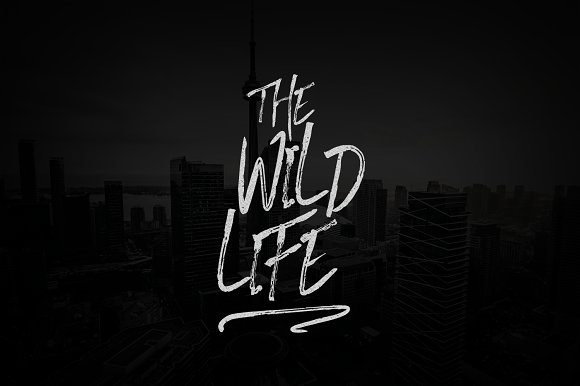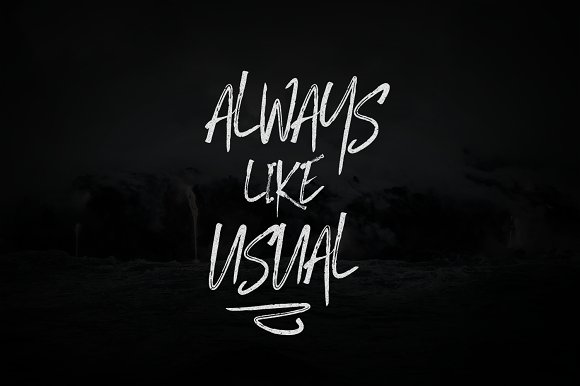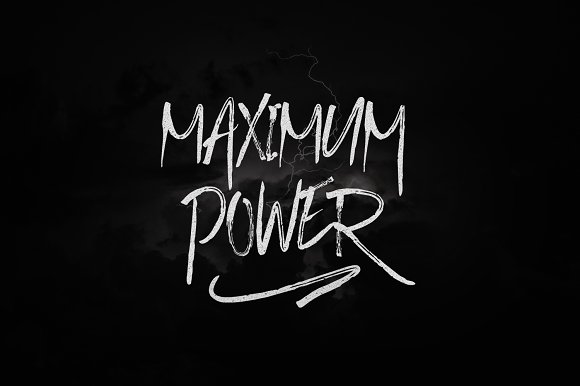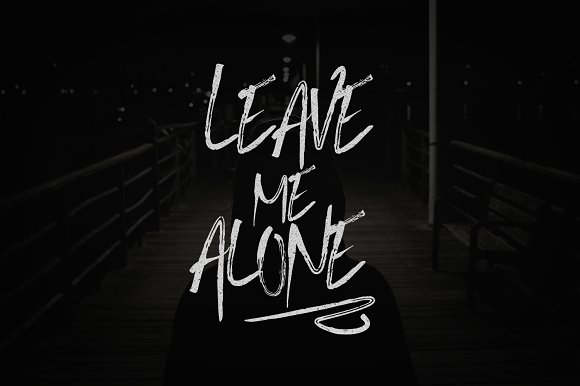
Teyenc Typeface
Teyenc is a brush typeface. It is suitable for any design needs, branding, cover title, t-shirts, posters and more.
The Teyenc typeface includes multi-lingual and currency support, numerals, and punctuations. It comes comes with stylistic alternates, ss01, ss02.